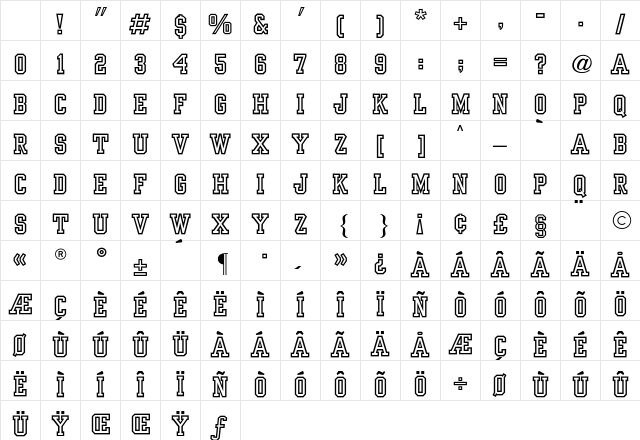
Complete Yearbook CG Outline Regular glyph index. Displaying only characters natively supported by Yearbook CG Outline Regular font.
Yearbook CG Outline is built around its visual character rather than neutral utility - its distinctive forms are designed to make an impression at display sizes.
Font Pairing: Pair with a clean neutral sans-serif for body copy to let Yearbook CG Outline's character lead without overwhelming the composition.
Pro Tip: Use Yearbook CG Outline exclusively at display sizes - it was designed to be seen, not read at length. Let a neutral companion handle body copy.